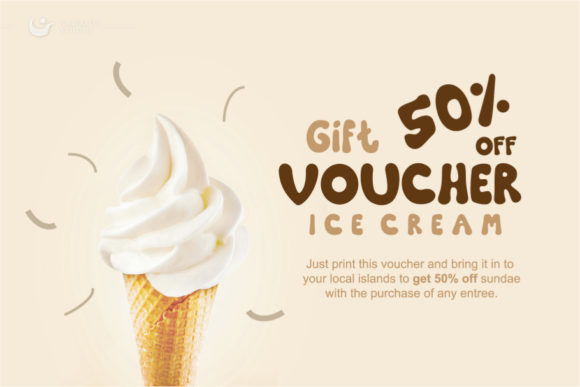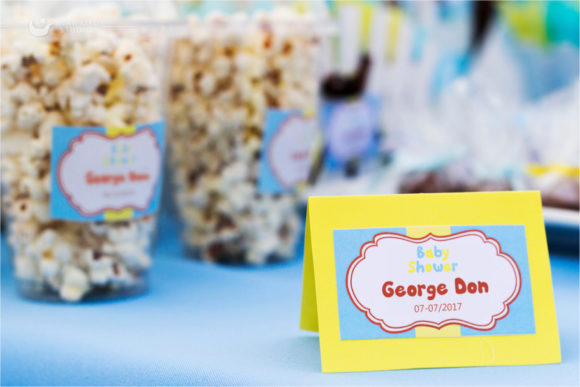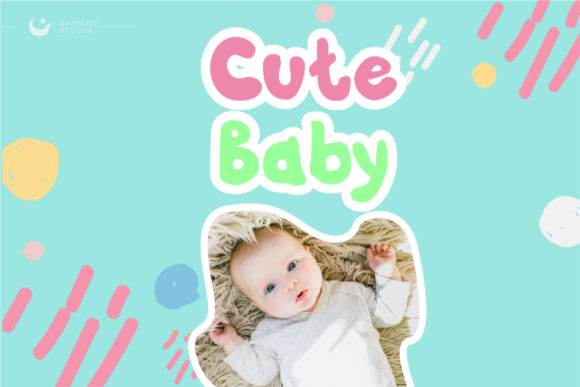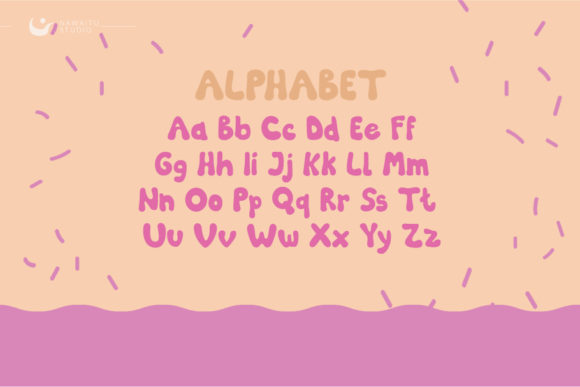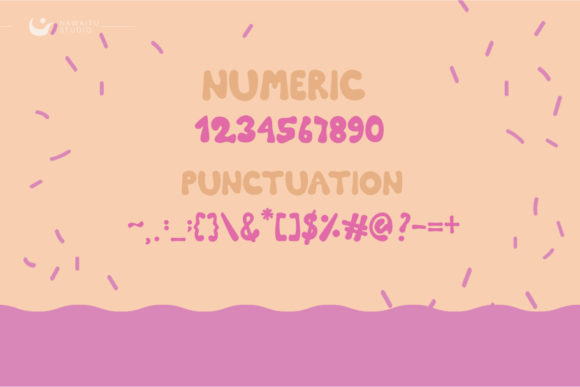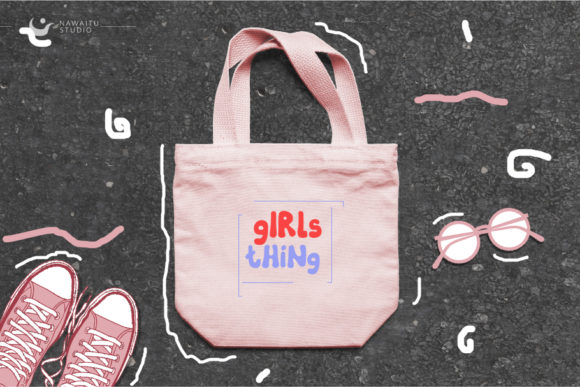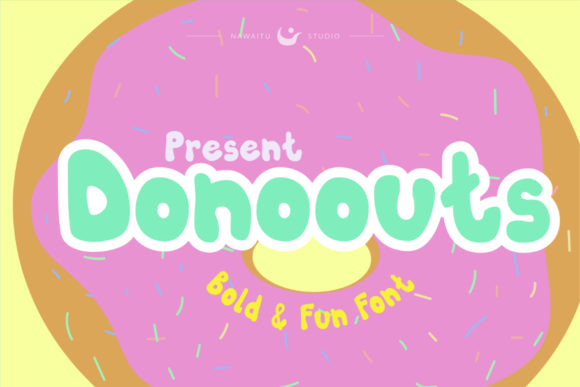
Donoouts Font: Adding a Cheerful Vibe to Your Designs
In the world of design, fonts play a crucial role in conveying the tone and personality of a project. If you’re looking for a font that can add a unique and funny style to your designs, look no further than Donoouts Font. This delightful font is perfect for creating invitations, frames, wall decorations, clothing brands, screen printing, and any other design idea that requires a cheerful vibe.
What is Donoouts Font?
Donoouts Font is a digital font designed to bring a playful and whimsical touch to your designs. Its unique style is characterized by bold lines, irregular shapes, and a dash of humor. The font’s quirky personality makes it an excellent choice for designers and crafters who want to add a bit of fun and personality to their work.
Features of Donoouts Font
- Unique and funny style: Donoouts Font has a one-of-a-kind design that is sure to grab attention and bring a smile to people’s faces.
- Versatile: This font can be used for a wide range of design projects, from invitations and wall decorations to clothing brands and screen printing.
- Easy to read: Despite its playful style, Donoouts Font is easy to read and understand, making it perfect for designs that require a clear message.
- Customizable: You can adjust the font size, color, and style to fit your design needs.
Uses of Donoouts Font
Donoouts Font is an excellent choice for various design projects, including:
- Invitations: Add a playful touch to your party invitations, wedding invitations, or baby shower invitations.
- Frames and wall decorations: Use Donoouts Font to create fun and quirky frames, posters, and wall decorations.
- Clothing brands: Give your clothing brand a personality boost with Donoouts Font, perfect for t-shirts, hoodies, and other apparel.
- Screen printing: Donoouts Font is ideal for screen printing designs onto various materials, such as fabric, paper, or wood.
- DIY projects: Add a personal touch to your DIY projects, such as handmade cards, gift tags, or scrapbooking.
Tips for Using Donoouts Font
To get the most out of Donoouts Font, follow these tips:
- Pair with other fonts: Combine Donoouts Font with other fonts to create a unique and visually appealing design.
- Experiment with colors: Try out different colors and gradients to match your brand’s personality or the tone of your design.
- Play with sizes: Adjust the font size to create visual hierarchy and emphasize important information.
- Keep it simple: Don’t overcomplicate your design – let Donoouts Font’s playful style shine through.
Donoouts Font is a fantastic addition to any designer’s toolkit. Its unique and funny style makes it perfect for a wide range of design projects that require a cheerful vibe. Whether you’re a professional designer or a crafter, Donoouts Font is sure to bring a smile to your face and inspire your creativity. So why not give it a try and see how you can use Donoouts Font to add a playful touch to your designs?